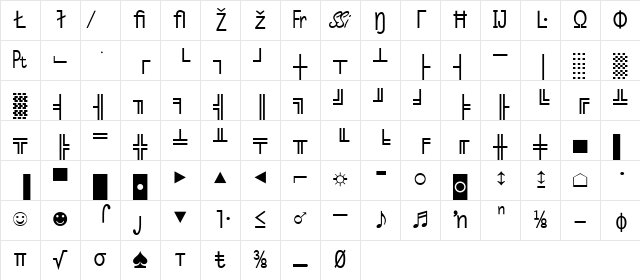
Complete Micro Pi Two SSi Normal glyph index. Displaying only characters natively supported by Micro Pi Two SSi Normal font.
Micro Pi Two SSi is a composed and adaptable typeface that performs quietly and consistently across a wide range of design contexts.